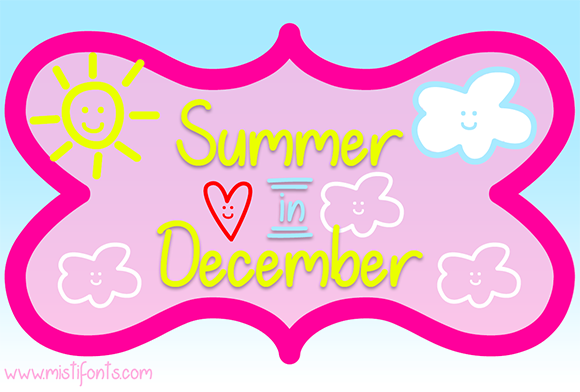
Summer in December Font
About Summer in December Font
Summer in December is a warm and friendly handwriting font that is perfect for a variety of uses!
SPECIAL SYMBOLS
Type * (asterisk) for the sun smiley
Type ^ (caret) for the cloud smiley
Type | (vertical bar) for the heart smiley
Type _ (underscore) for the “in”
Type (backslash) for the open frame
Type ~ (tilde) for the solid frame